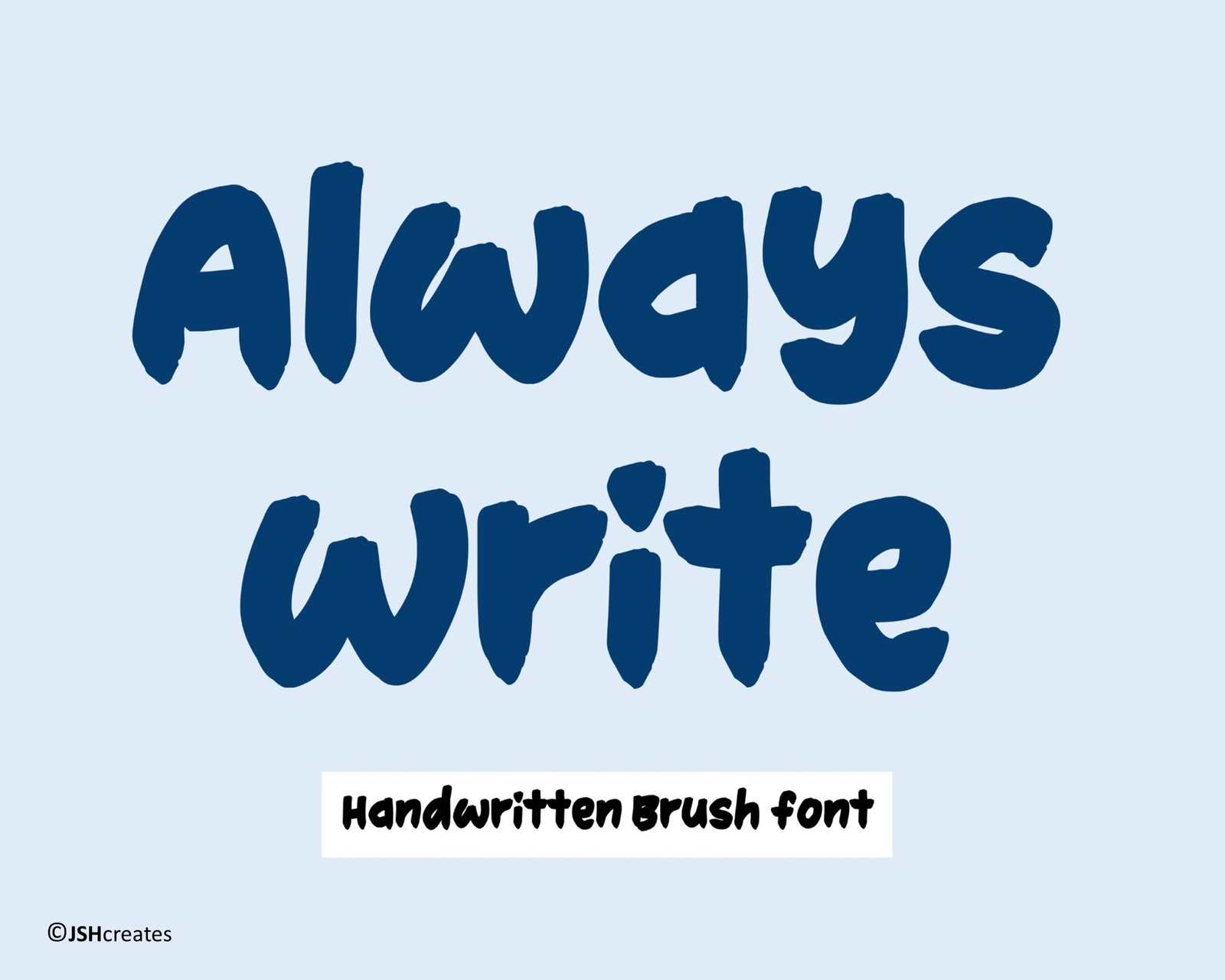
Always Write Font
Handwritten bold and chunky font. “Always Write”. Perfect for advertising and display purposes, including banners, book covers, shirts, posters, logos and much more!